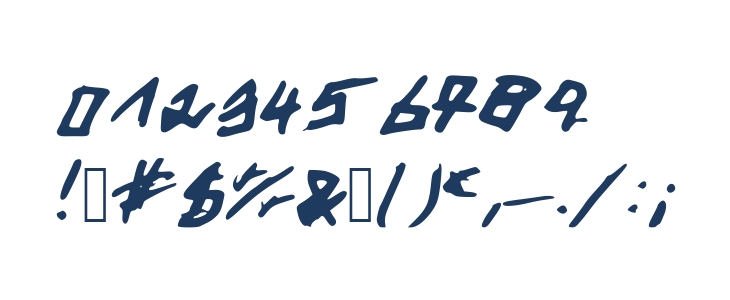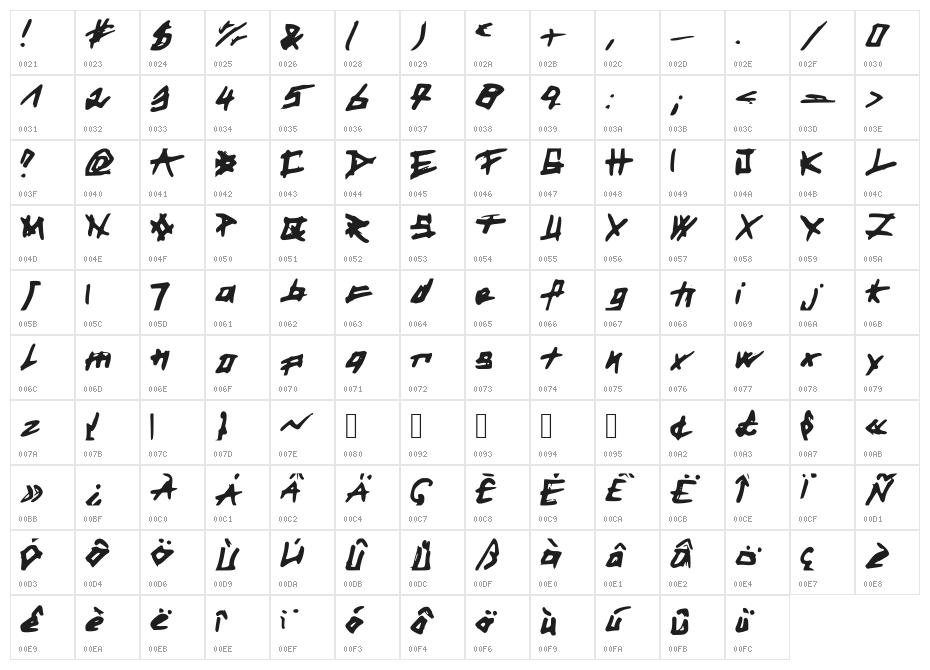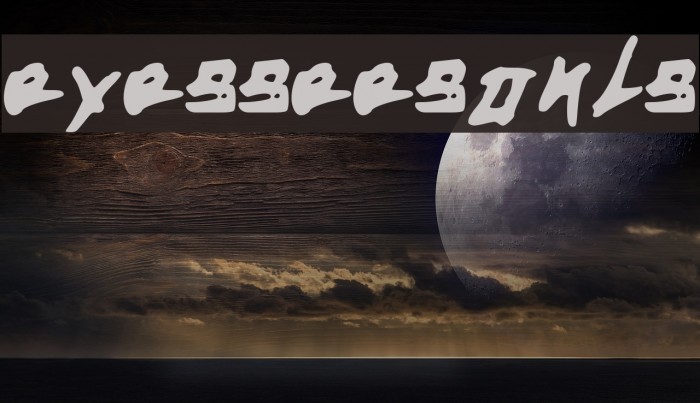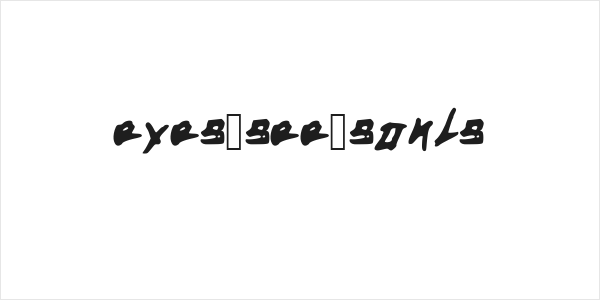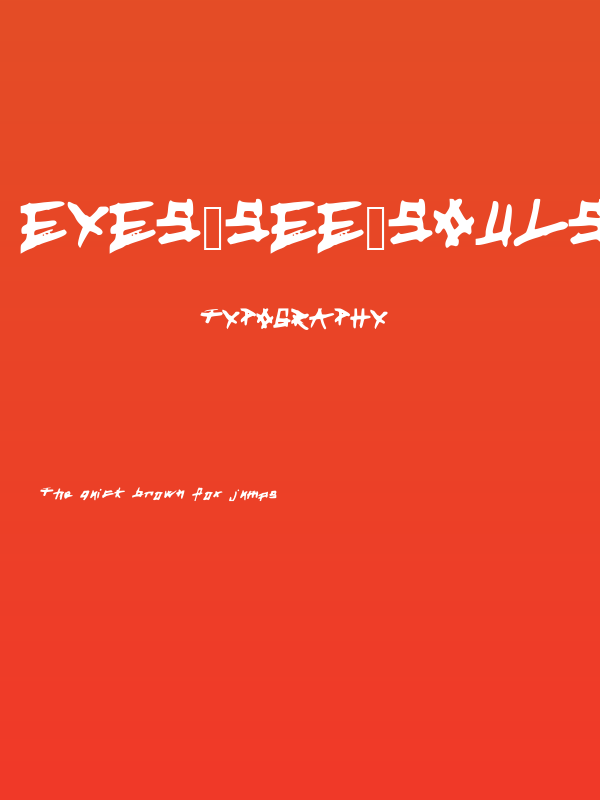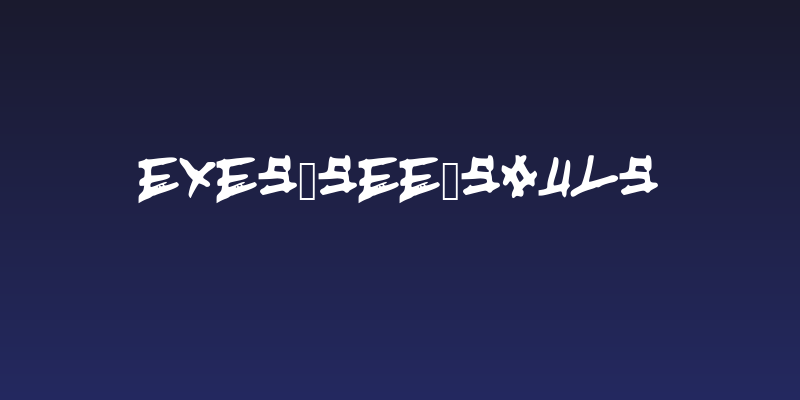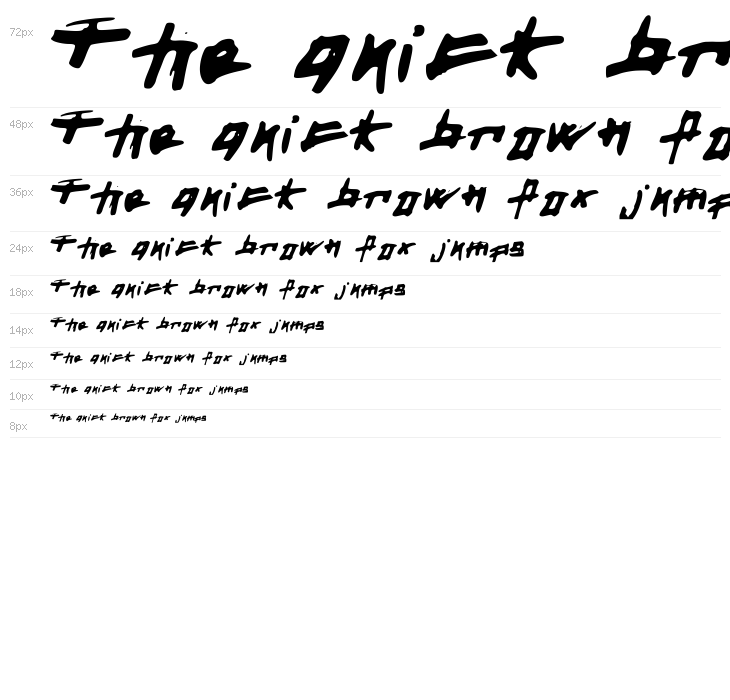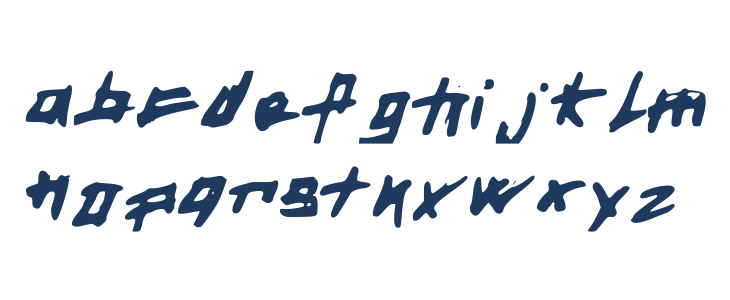
eyes_see_souls Font
eyes_see_souls Description
This font exhibits a bold and dynamic style, characterized by its sharp, angular strokes and irregular, hand-drawn appearance. The uppercase letters are particularly striking, with a jagged, almost aggressive form that suggests movement and energy. The lowercase letters maintain this edgy aesthetic, while offering a slightly more subdued and compact form. Numbers and special characters follow the same design principles, ensuring consistency across all glyphs. The overall impression is one of raw, expressive creativity, making it ideal for projects that require a strong visual impact.
| Overall Style | Modern, Expressive |
| Proposed Projects | Ideal for album covers, graffiti art, edgy branding, and poster designs that require a bold statement. |